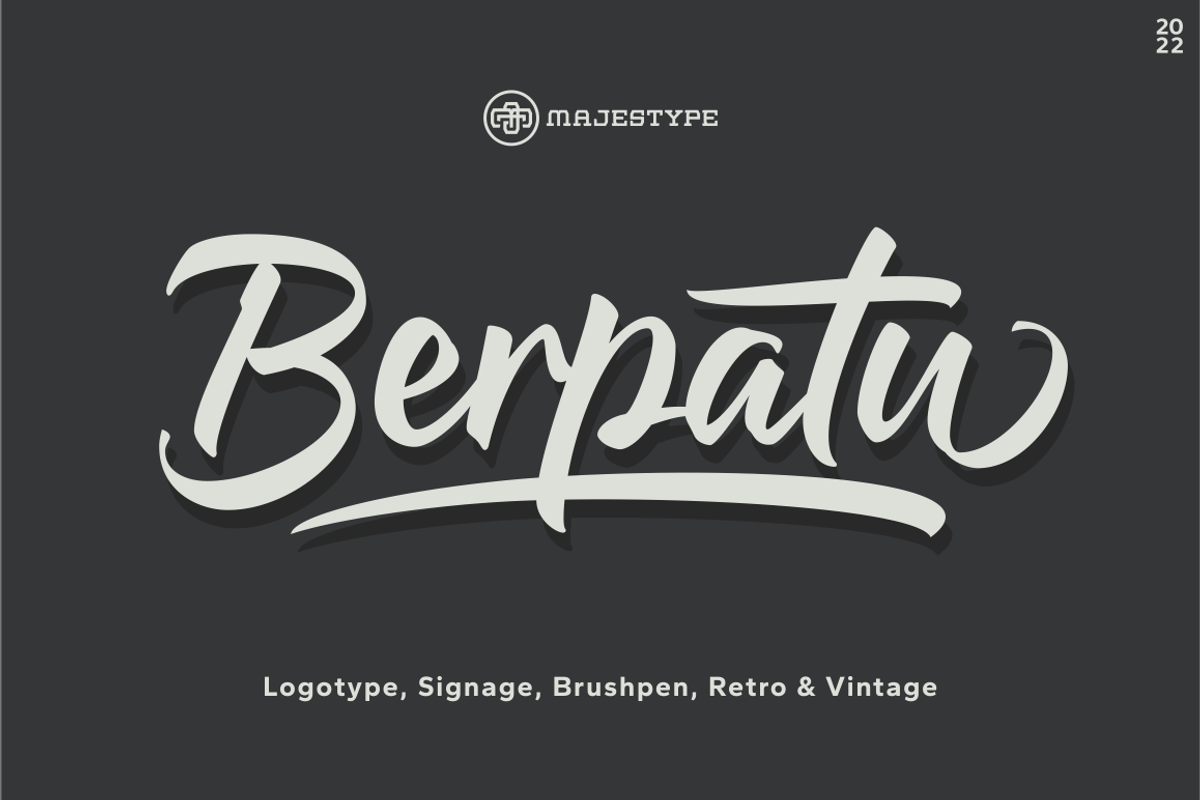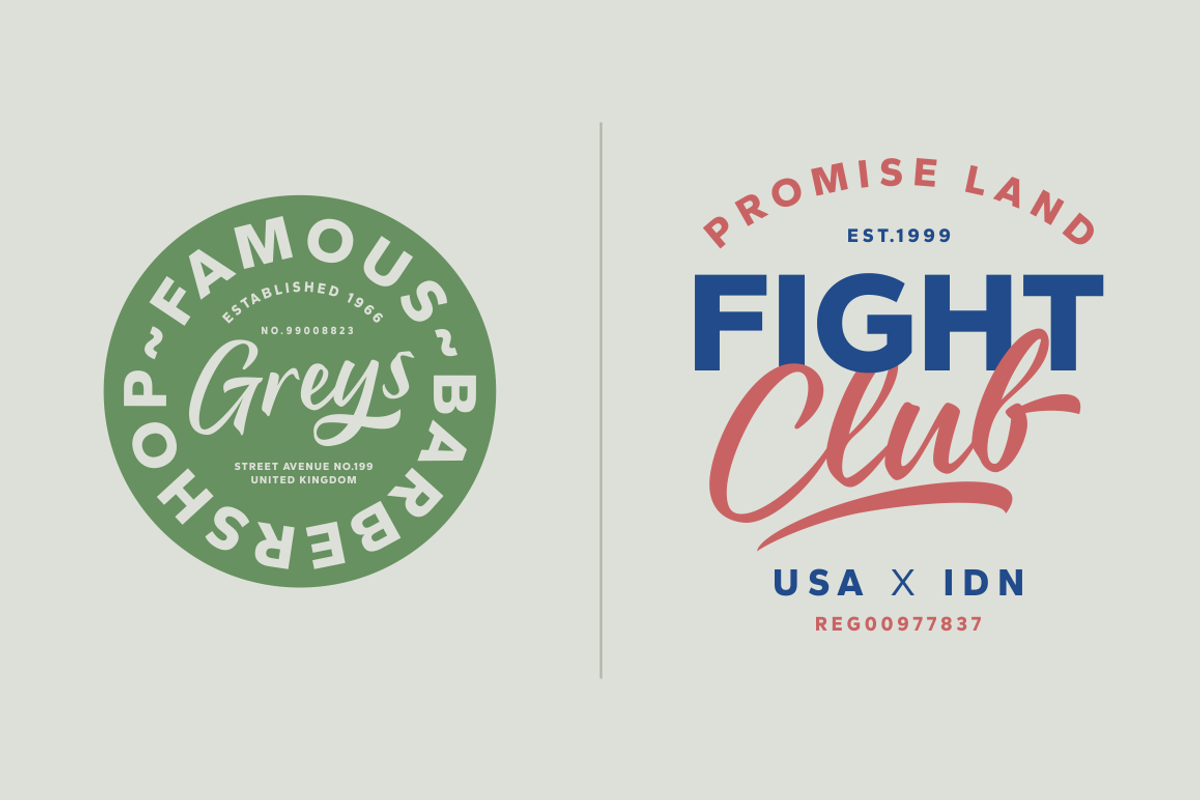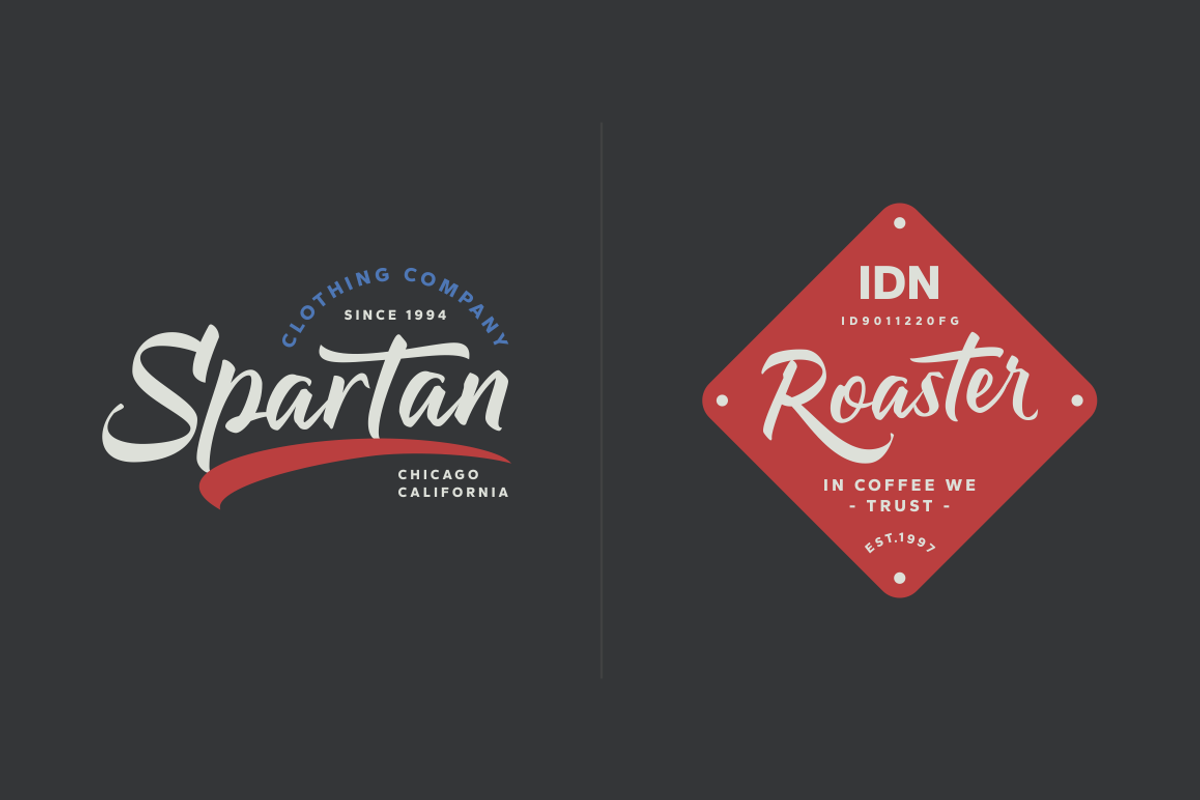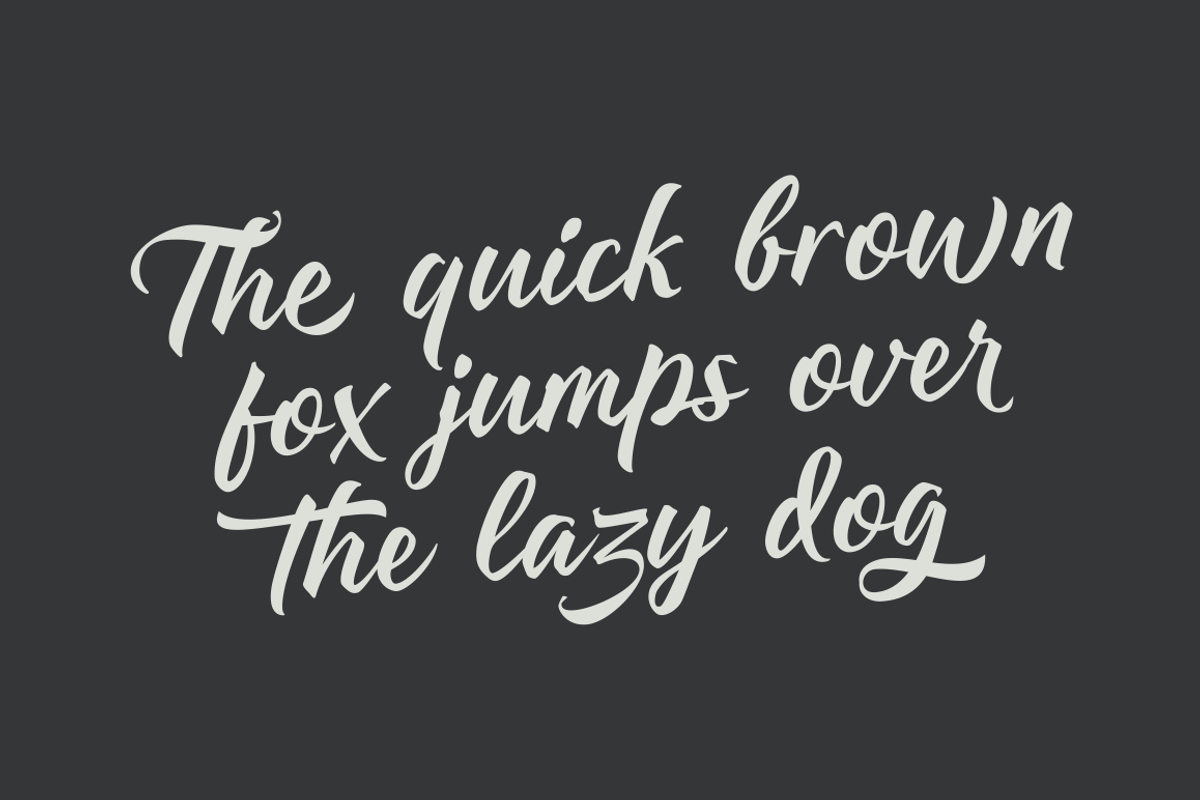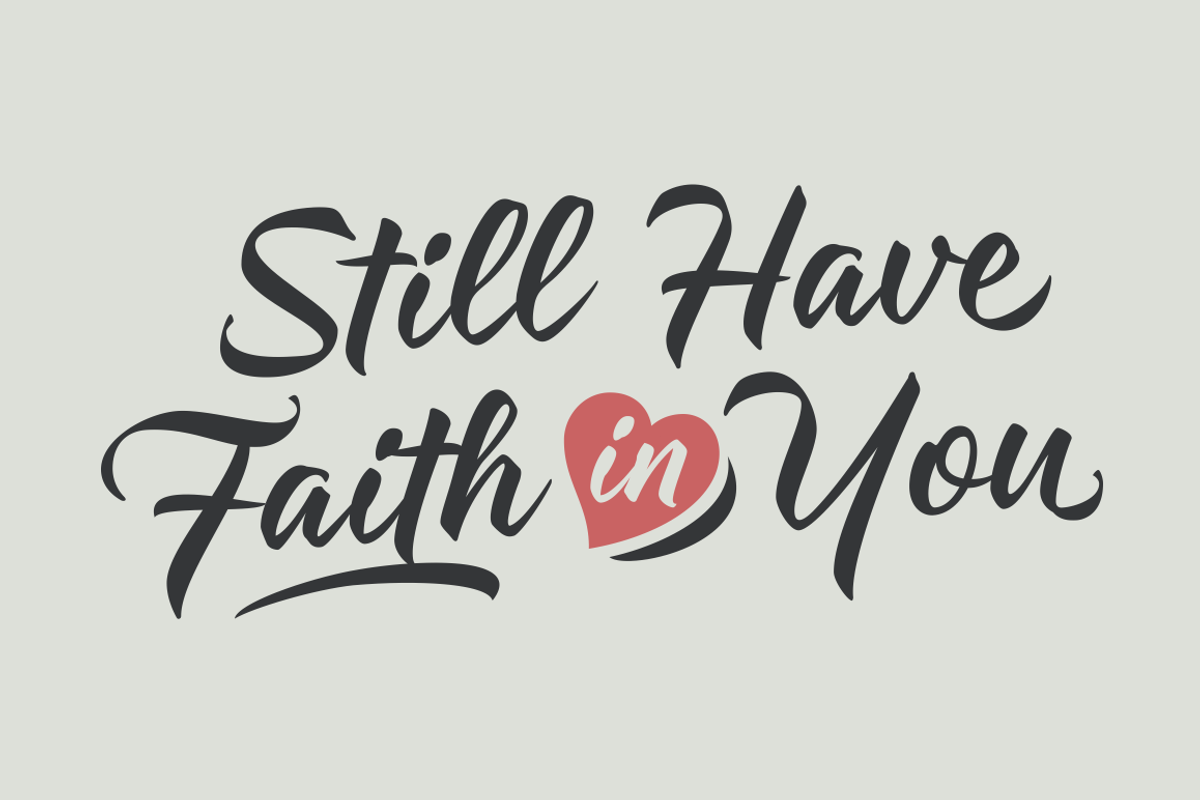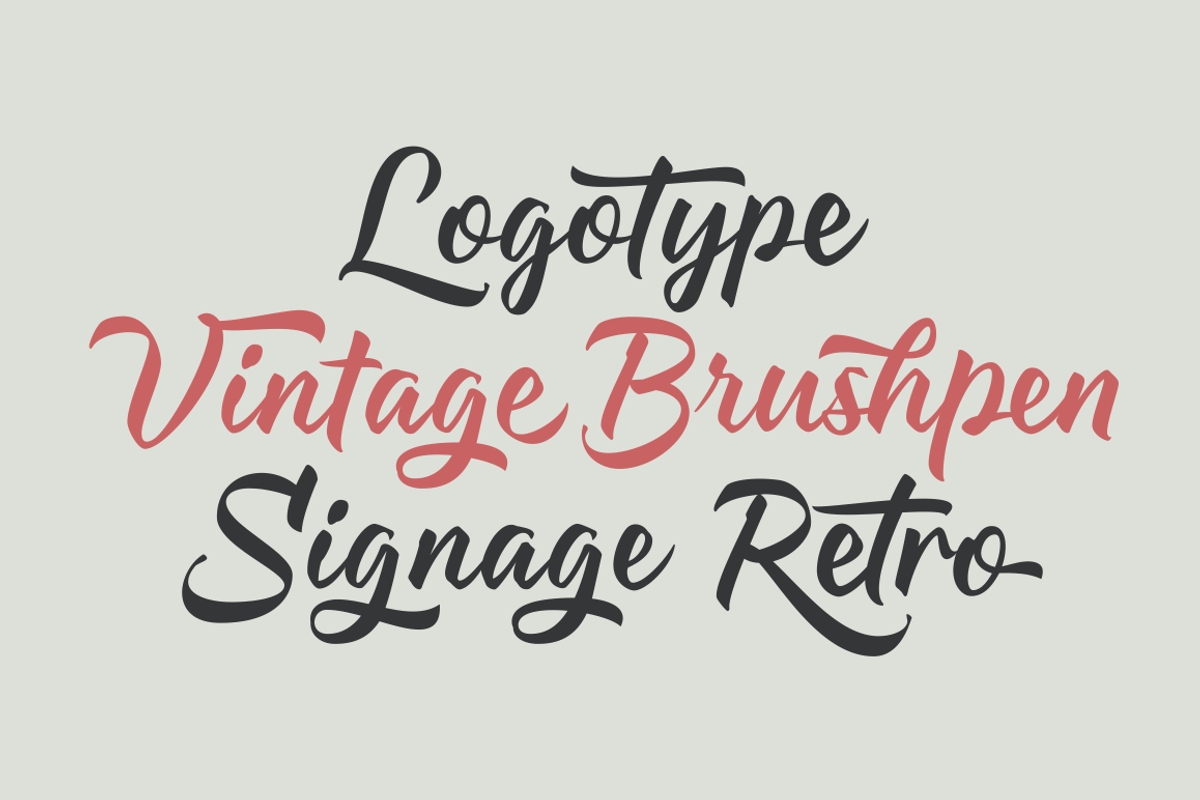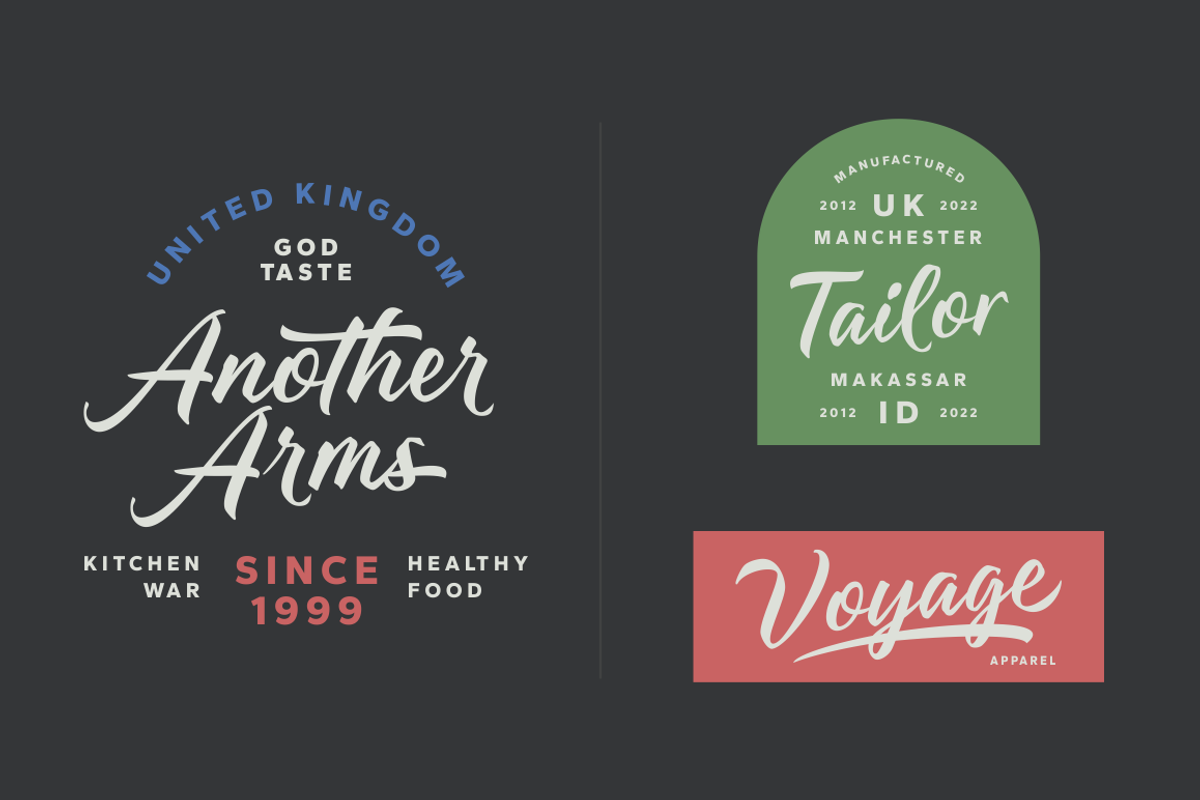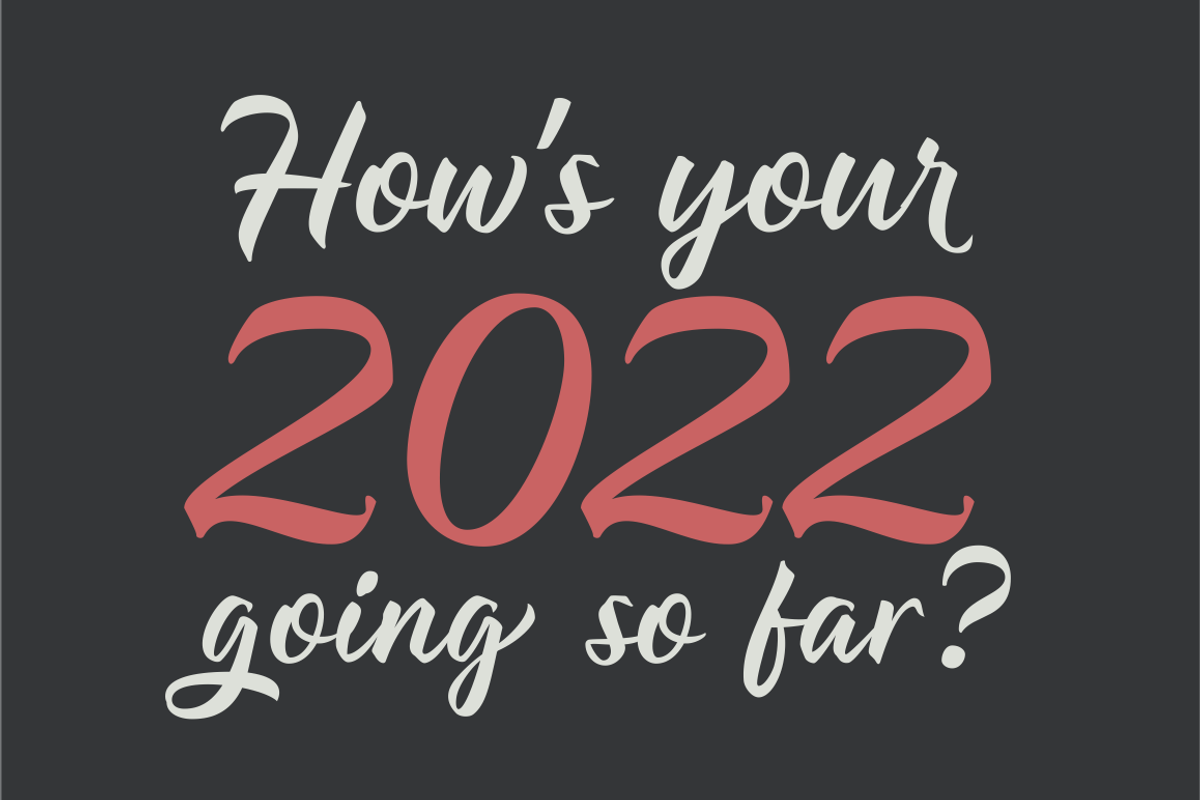
Berpatu - Calligraphy Vintage Font
Hand-lettered with a real brush pen. Berpatu brings the energy of classic shop signs and vintage billboards into your modern designs — bold, warm, and instantly recognizable.
With 300+ glyphs, ligatures, contextual alternates, and swash variants, every word feels crafted — not typed.
Perfect for logos, posters, packaging, t-shirts, signage, and any project that needs a human touch. Supports 17 languages.